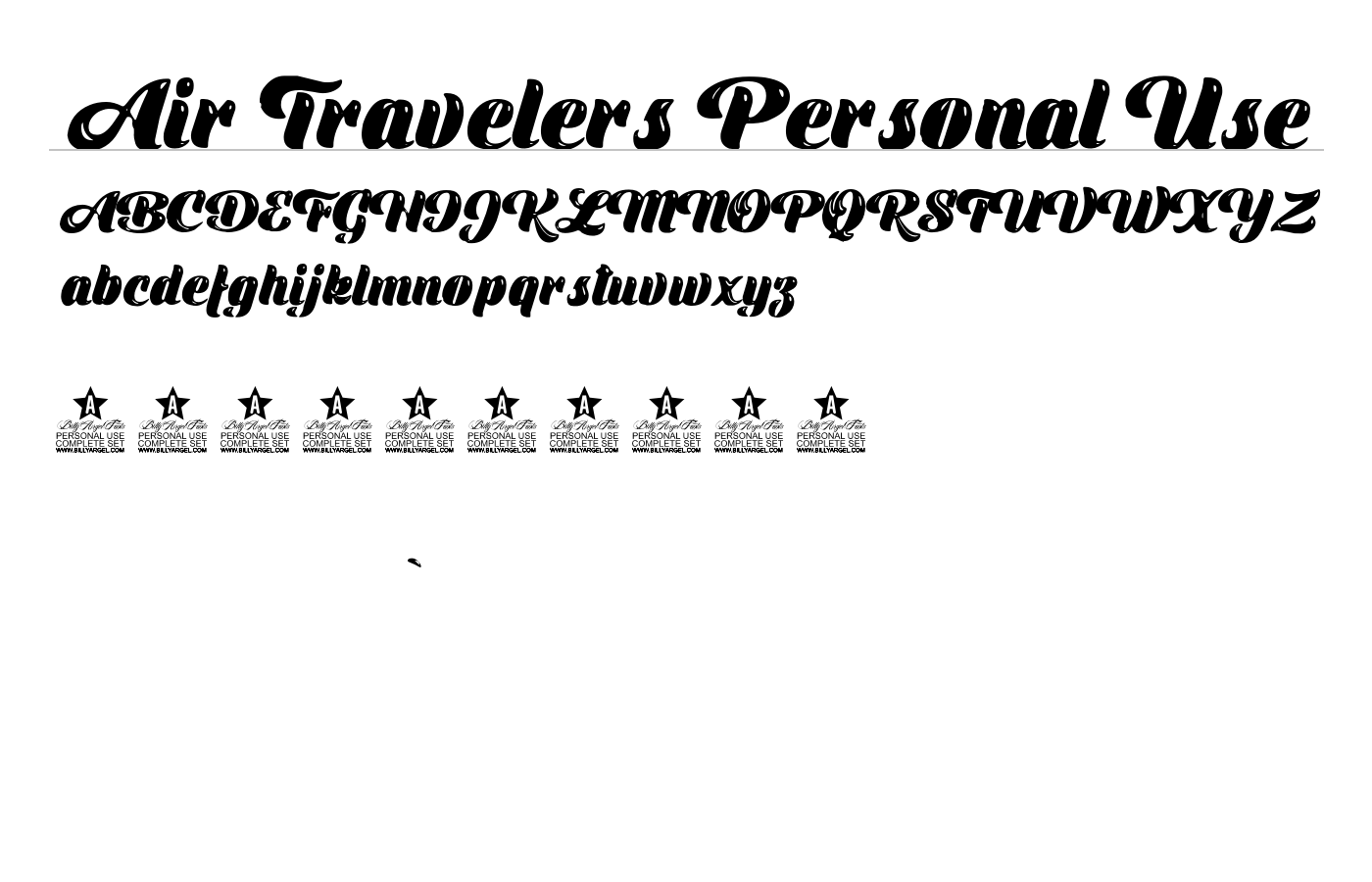
Air Travelers Personal Use is a bold, cursive script font characterized by its thick, flowing strokes and playful, retro-inspired curves. Its high contrast and lively letterforms give it a vintage yet energetic feel, making it ideal for creative branding, eye-catching headlines, and fun packaging designs that want to convey personality and warmth. This font works best where a strong, distinctive style is needed to attract attention and evoke a sense of nostalgic charm.
Air Travelers Personal Use Font
About Air Travelers Personal Use Font
| Font family | Air Travelers Personal Use Font |
| Font subfamily | Bold, Italic |